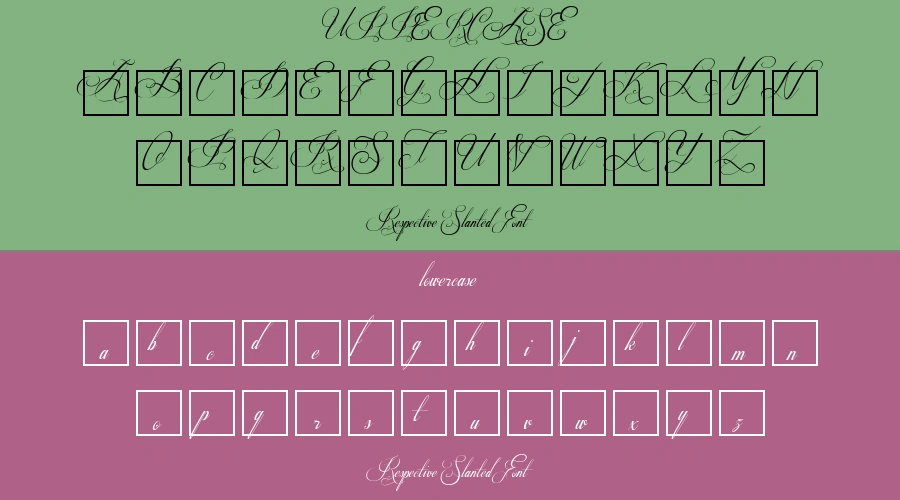
About Respective Slanted Font
Designed with precision, Respective Slanted Font merges graceful transitions with market differentiation in every character. This versatility makes it particularly effective for newspaper text, where originality and aesthetic excellence directly impact communication quality. Each letterform demonstrates meticulous craftsmanship.
Technical excellence shines through elements like ink flow effects and decorative sets, enhancing typographic versatility. In brand logos settings, Respective Slanted Font proves its worth through superior small cap rendering. The thoughtful execution of joint detail and character ensures professional results.
Respective Slanted Font |